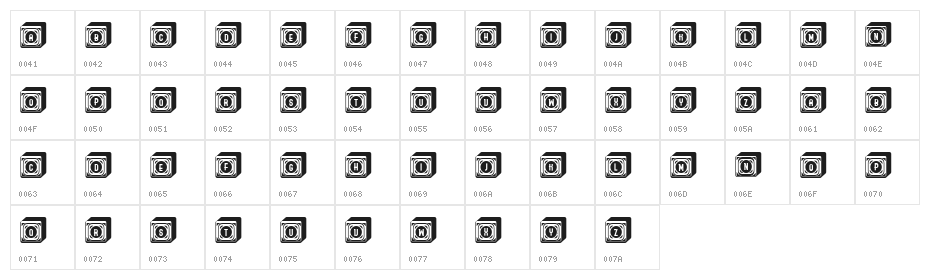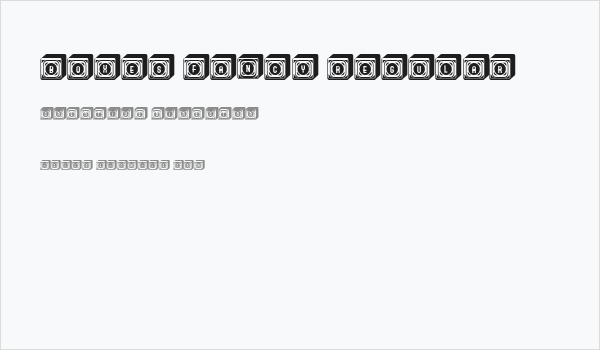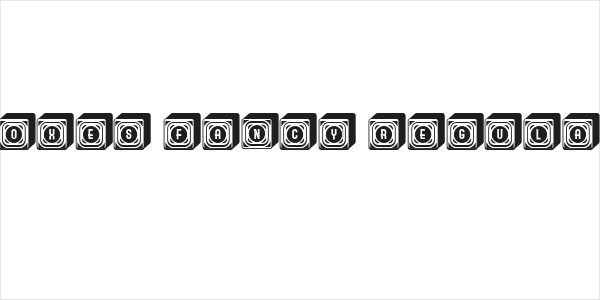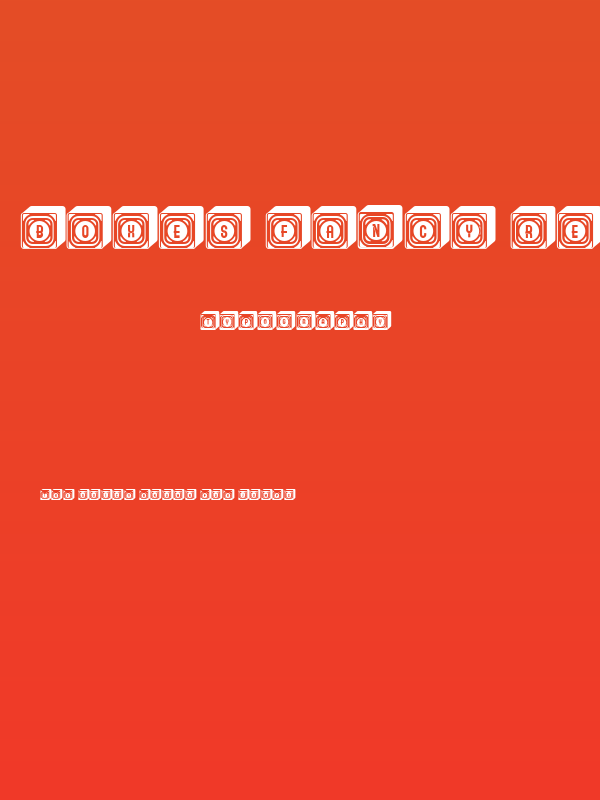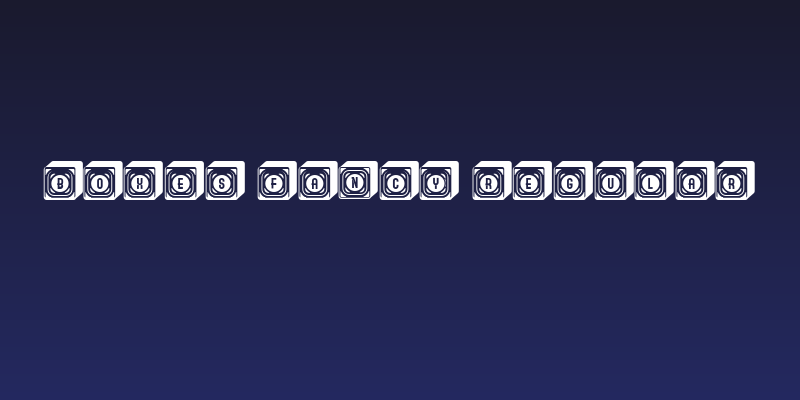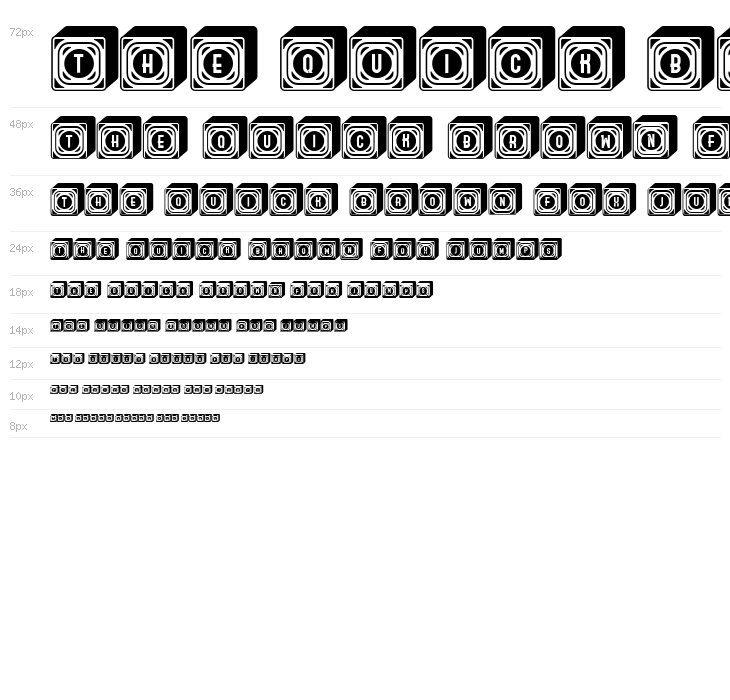
Boxes Fancy Regular Font
Boxes Fancy Regular Description
This font features a unique and decorative style where each character is enclosed within a three-dimensional box, giving it a playful and eye-catching appearance. The letters are bold and stand out against the dark background of the boxes, which have a layered, shadowed effect that adds depth. The design is consistent across uppercase and lowercase letters, as well as numbers and special characters, maintaining a cohesive look. The font's distinct style makes it suitable for creative and fun projects, where a strong visual impact is desired. Its geometric and structured appearance lends itself well to modern and artistic themes.
| Proposed Projects | Ideal for posters, children's books, game designs, and creative branding projects. |